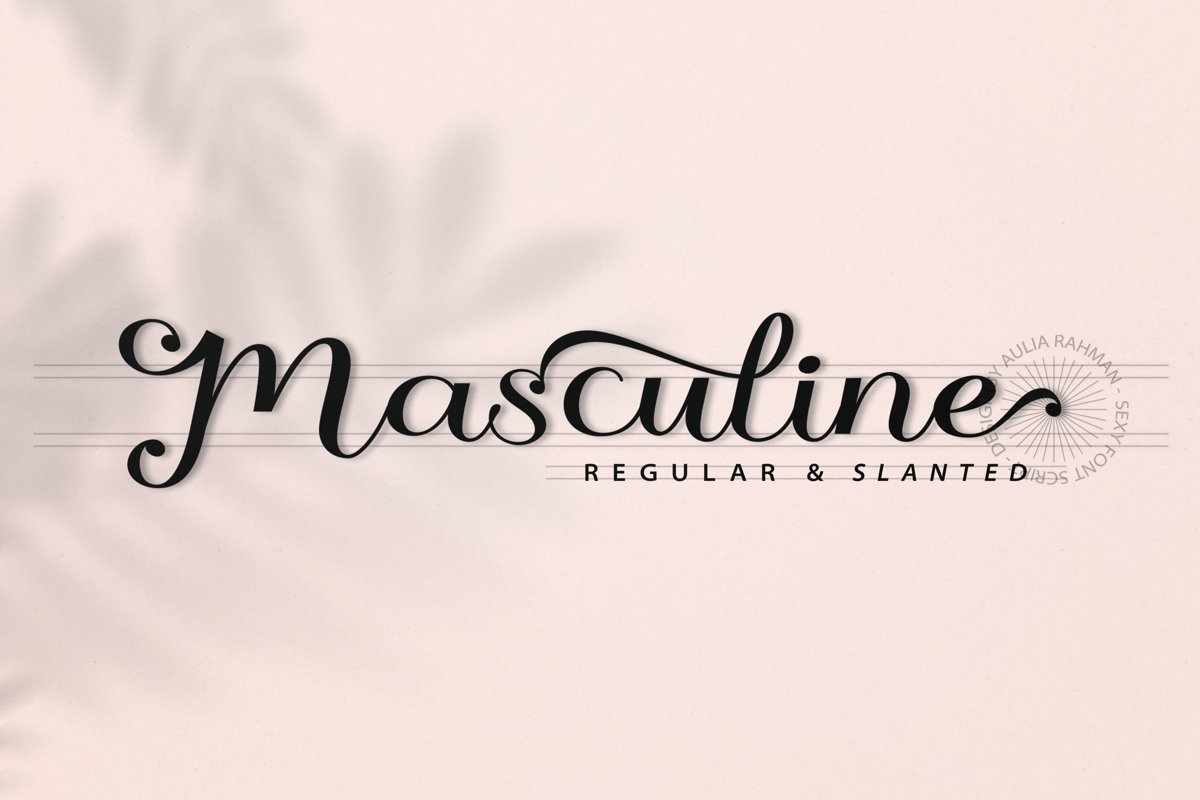
Masculine - Two Style
Masculine-Slanted
Masculine-Regular
Masculine is the Sexy font that was handwritten under the inspiration of modern calligraphy. It creates a luxurious and elegant look in design. Masculine comes with Clean versions, beautiful uppercase, and lowercase alternates, ligatures and loved by many end-swashes. It has Multilingual support (Western European characters) and works with the following languages: English, Danish, Dutch, Estonian, Faroese, Filipino, Finnish, French, German, Hungarian, Indonesian, Icelandic, Irish, Italian, Norwegian, Polish, Portuguese, Spanish, Swedish. In my examples, I show how this script can be used. It's very well suited for logotypes, wedding invitations, labels, romantic cards, and others.
• Stylistic Alternates of Uppercase & Lowercase
• Ligatures & End-Swashes